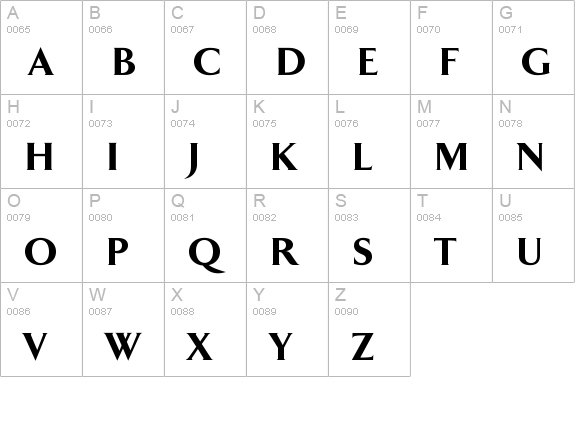
ArrowExtraBold Font Details
ArrowExtraBold is a dynamic and powerful font that exudes confidence and strength. With its bold and striking design, this font is perfect for making a statement and standing out from the crowd. The thick lines and sharp angles of ArrowExtraBold give it a modern and edgy look that is sure to capture attention. The best part? ArrowExtraBold is available for free download at FontsMarket.com. This means you can easily add this eye-catching font to your collection without breaking the bank. Whether you're designing a poster, logo, or any other creative project, ArrowExtraBold is a versatile font that will help you make a bold statement. Download it today and unleash the power of ArrowExtraBold in your designs.